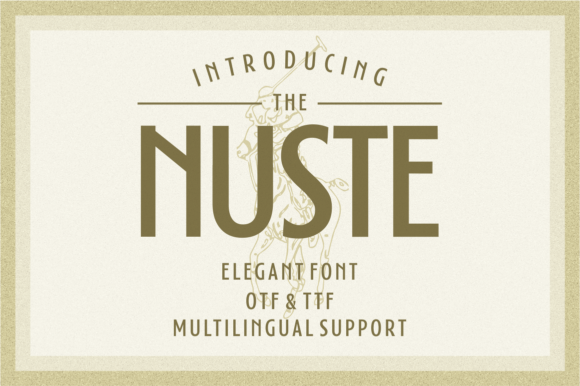
Behold Nuste Font, a display font that echoes simplicity, boldness, and neatness. With its strong presence, Nuste Font promises to transform your creative ideas into captivating designs that won't fade into the background. It's the perfect choice for crafting logos that demand attention, headlines that command action, and posters that ignite curiosity.
Nuste Font's unwavering boldness commands attention, making your words leap off the page and into the hearts of your audience. Whether you're creating a striking logo, a persuasive poster, or an eye-catching social media post, Nuste Font delivers an unforgettable impact that resonates with viewers.
This remarkable font is the brainchild of dignity.std, a renowned font foundry known for creating masterpieces that balance aesthetics with functionality. Nuste Font is no exception, effortlessly complementing a wide range of design projects with its versatile charm.
From sleek and sophisticated logos to playful and vibrant posters, Nuste Font effortlessly adapts to your creative vision. Its clean lines and simple structure make it a versatile choice for both traditional and modern designs, ensuring that your message shines through with clarity and impact.
With Nuste Font, you'll discover a font that not only enhances your designs but also empowers your brand. Its distinct character adds a touch of sophistication and professionalism, elevating your brand's image and making a lasting impression.
Nuste Font is more than just a font; it's a gateway to creative liberation. Unleash your imagination and watch as Nuste Font transforms your designs into captivating works of art. Embrace its boldness, bask in its simplicity, and revel in the neatness that sets it apart from the ordinary.